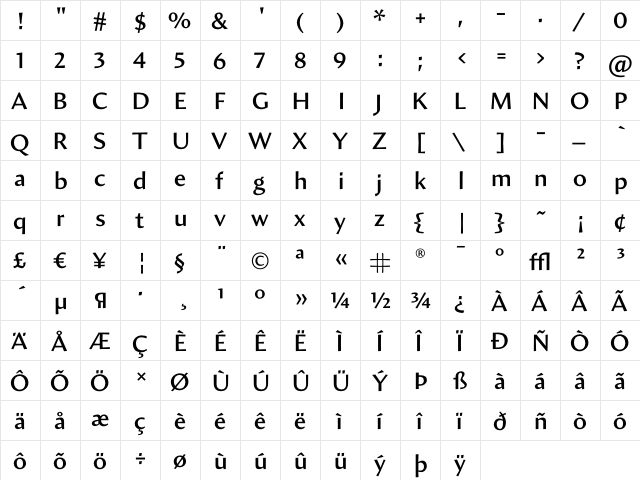
Amira Semibold
Design Context for Amira Typeface
Amira offers clean, dependable letterforms without strong stylistic allegiance, making it a practical choice for designers who need flexibility. The heavy weight commands attention and anchors typographic hierarchies.